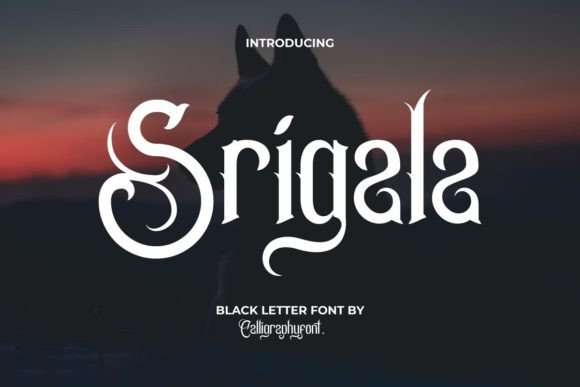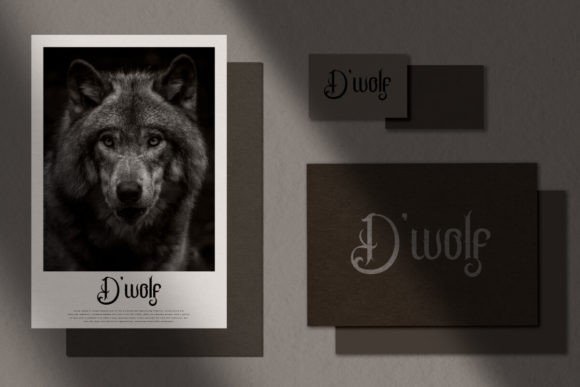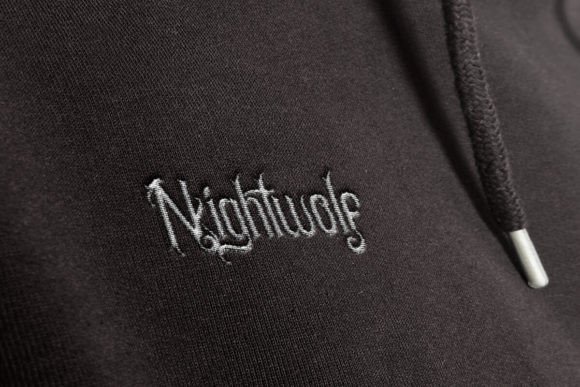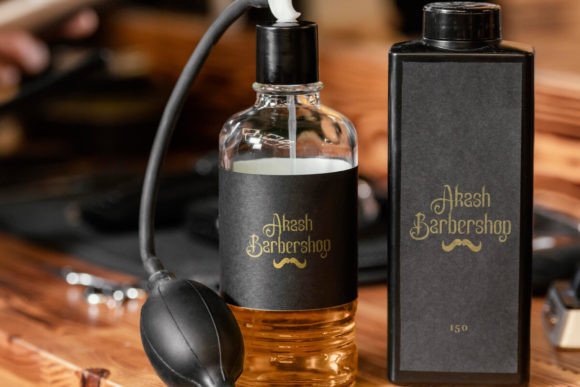
Srigala Font
Srigala is a vintage blackletter font with Gothic looks which was inspired from old style Mediterranean Western Europe. Now it comes with a modern look and will be perfect for any creative project, such as billboard, brand logo, embroidery design, header, label, packaging design, screen print, stationery, sticker, website, and many more.